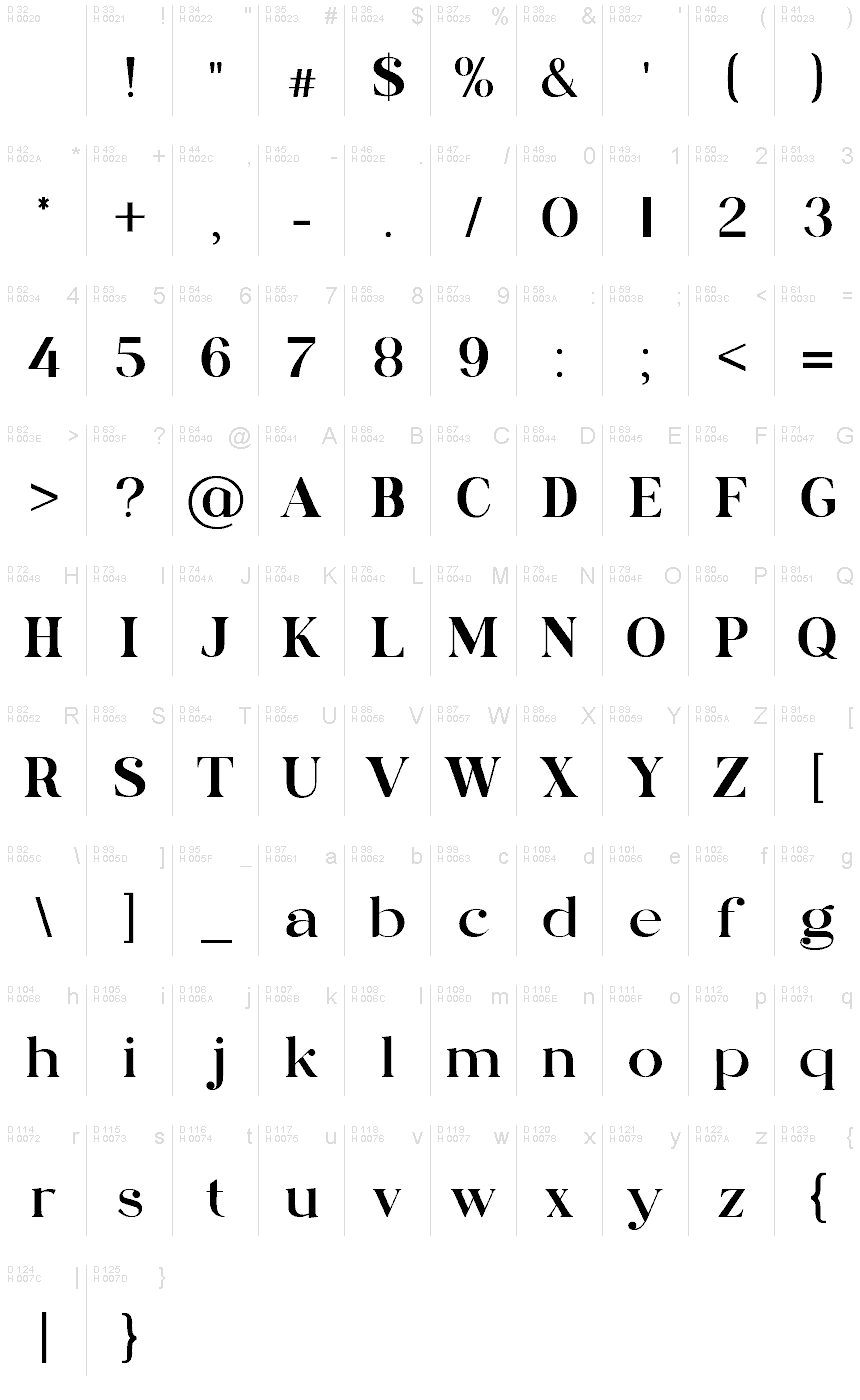
MagicFlavour
Magic Flavour font by UI Creative is an elegant and expressive serif font featuring a sophisticated, classic style with a refined appearance. Each character is created beautifully in an exquisite, harmonious manner which really distinguishes it from its peers.
This free serif font is best used for poster designs, stationery design, branding and corporate identity design. It fits as well in wedding invitation cards, book covers layouts including those bedazzling magazine covers.